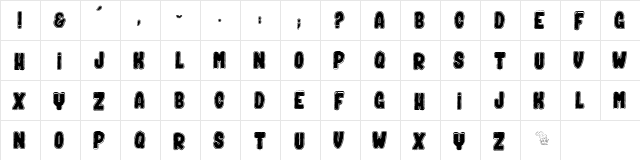
SPIRIT & GHOST Regular
Design Context for SPIRIT & GHOST Typeface
SPIRIT & GHOST is a composed and adaptable typeface that performs quietly and consistently across a wide range of design contexts.